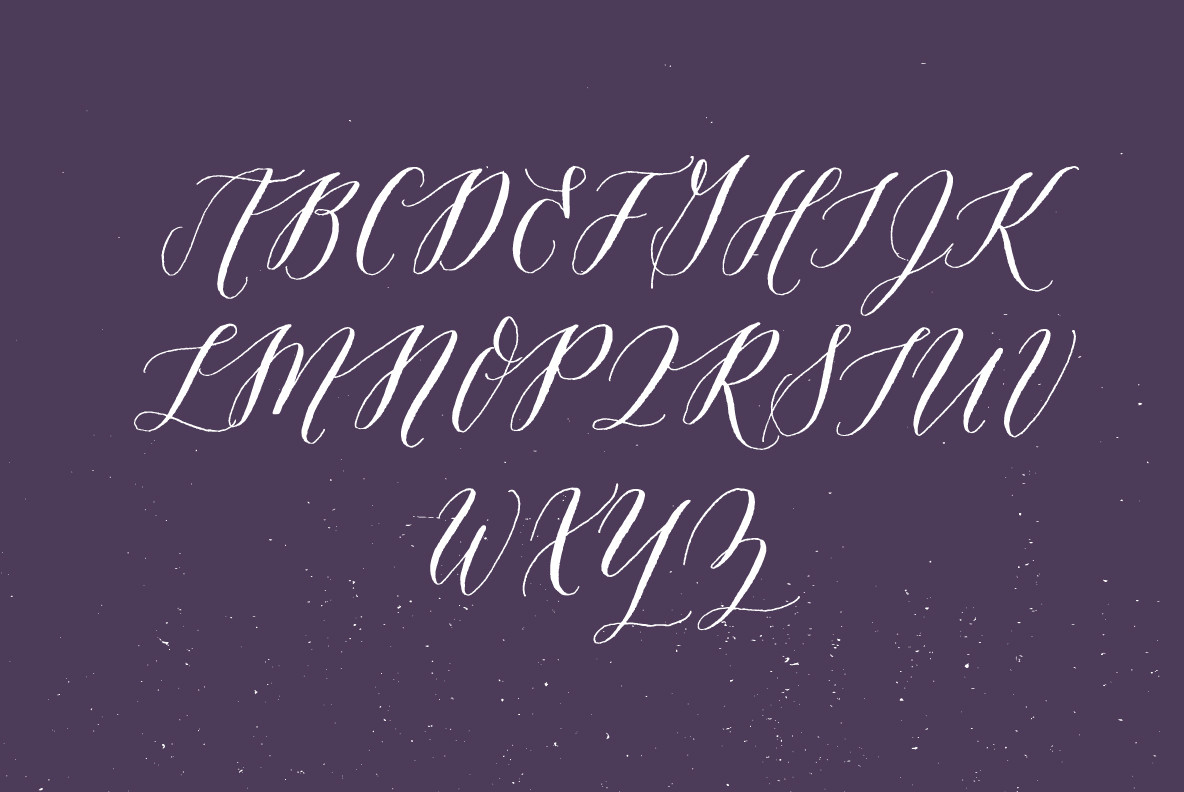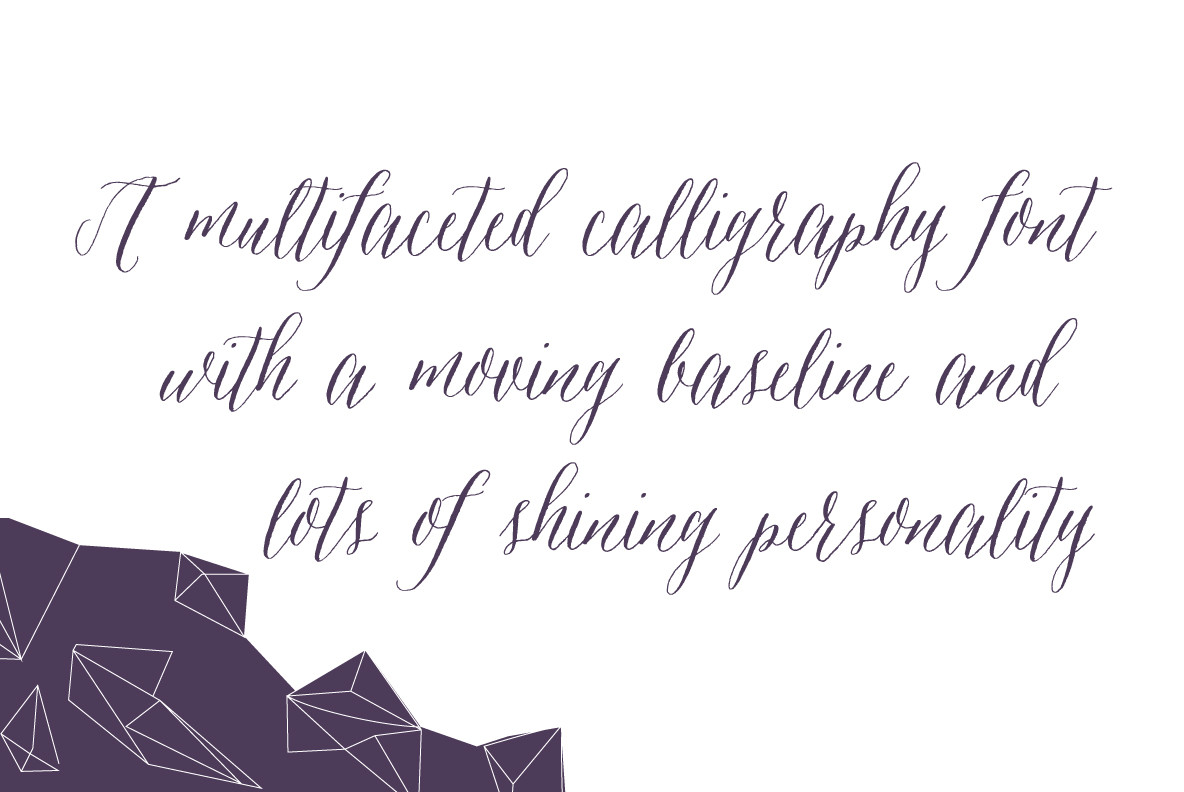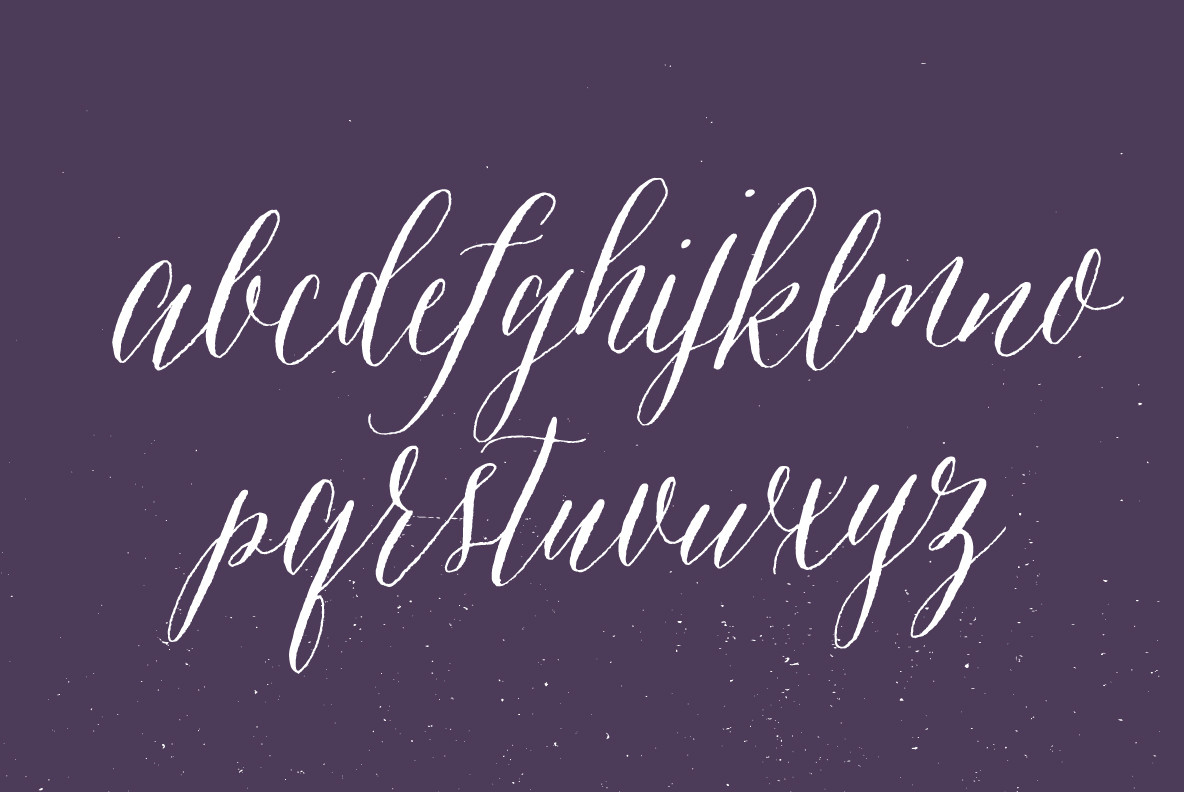
Asterism is a calligraphy style font with a moving baseline and lots of shining personality.
This hand written style font is based on one of Molly’s signature calligraphy styles and pairs beautifully with Frosted, Icing, Saint Agnes.